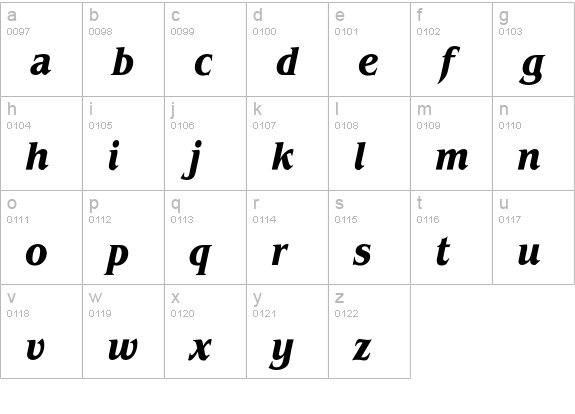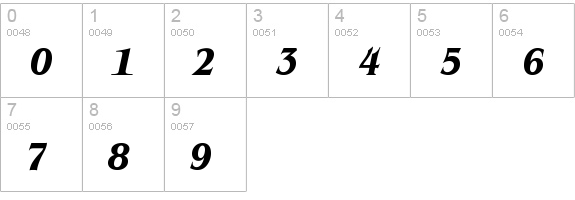
BenguiatEF-BoldCondensedIta is a striking and bold italic font that exudes elegance and sophistication. Its condensed design makes it perfect for creating eye-catching headlines, titles, and other display text. The unique slanted italic style adds a touch of flair and modernity to any design project. The sharp angles and clean lines of BenguiatEF-BoldCondensedIta make it ideal for projects that require a sleek and contemporary look. Whether you're designing a poster, logo, or website, this font is sure to make a bold statement. The best part is that BenguiatEF-BoldCondensedIta is available for free download at FontsMarket.com. So, you can easily add this stylish font to your collection without breaking the bank. Don't miss out on the opportunity to enhance your designs with the bold and elegant BenguiatEF-BoldCondensedIta font today!